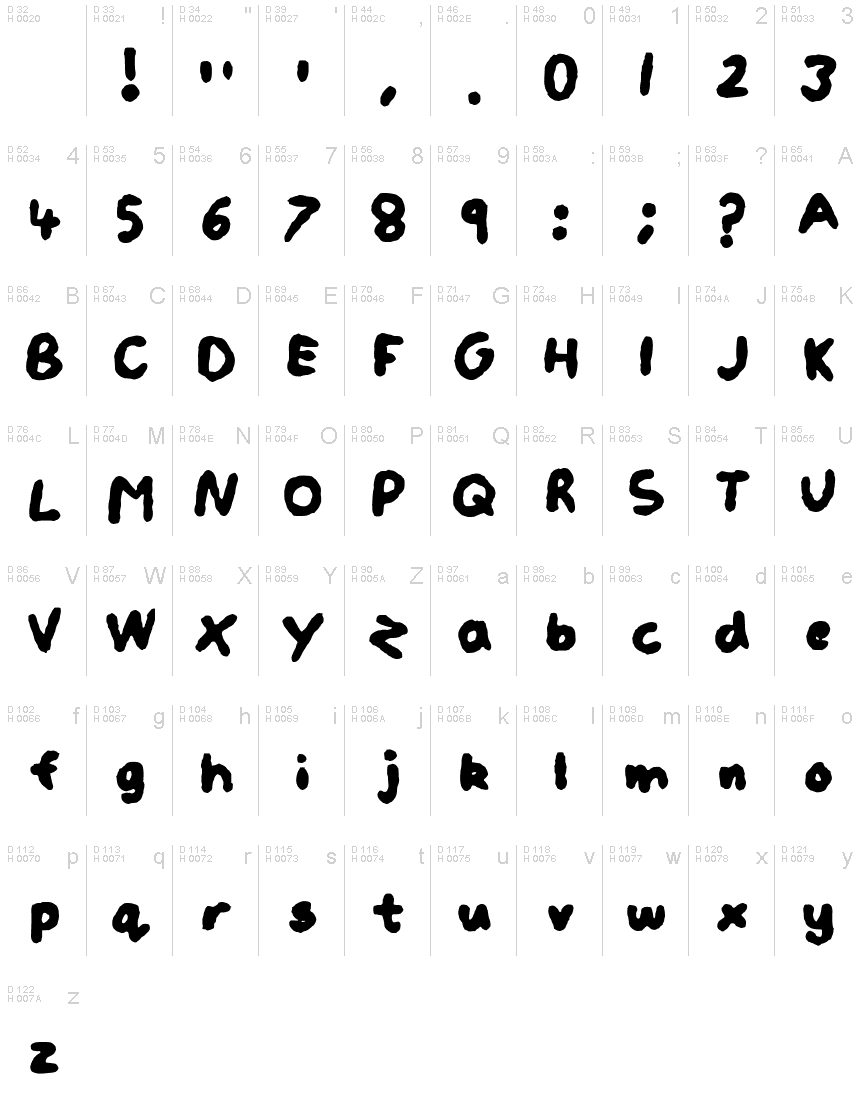
Watercolour Test Regular
Introducing Watercolour, a bold brush font designed by marshmelefunny. Perfect for creative projects such as poster designs, album covers, logos and product labels, Watercolour brings unique flair to your work.